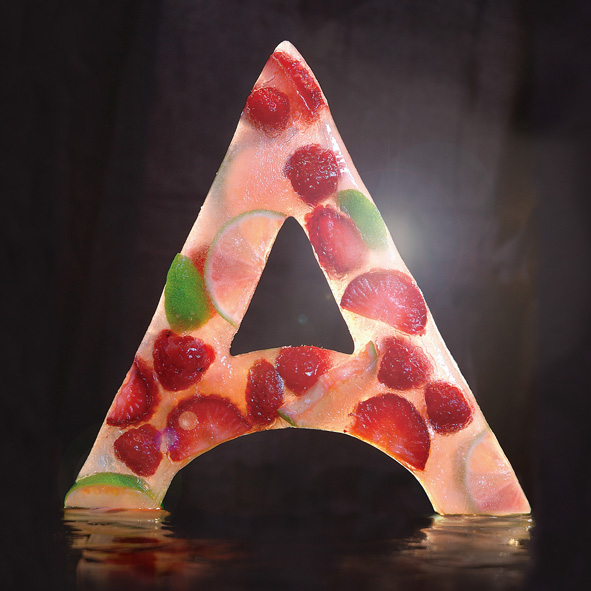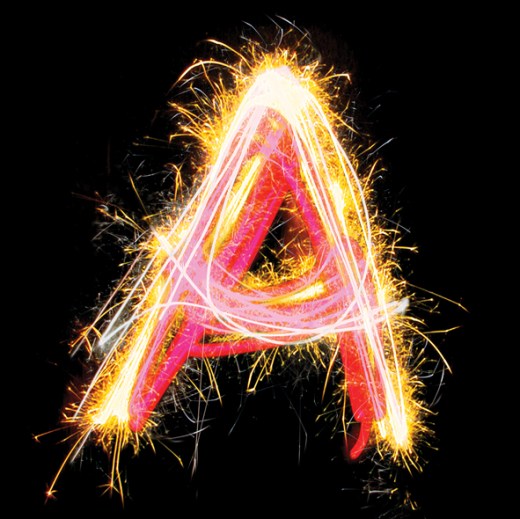
Fire and ice: elemental typography
The making of the fire and ice ‘A’s.
The ice ‘A’ was an idea I had while walking along on a hot summer day, I was thirsty and really fancied an ice lolly. I started by building a 20 x 20cm silicon mold created by pouring the model making mixture over a cardboard reconstruction. This was then filled with water and fruit and left to set in the freezer (which took the best part of a weekend). I photographed it myself in my studio by suspending on fishing twine, back lit against a black background. The photo shoot had to be quick as I used a hairdryer to make the ice shiny, but this also meant that the ‘A’ melted quickly. Then it was just a case of Photoshopping out the twine and any background clutter.